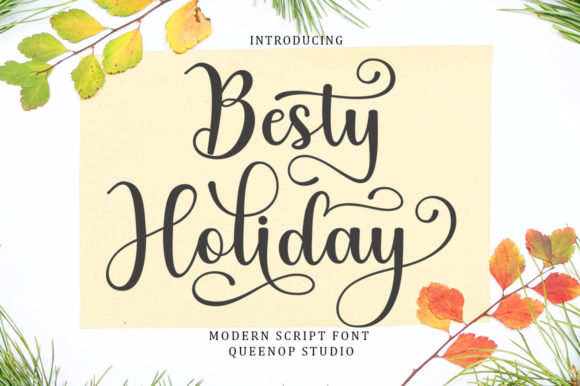
Prepare yourself to fall head over heels for Besty Holiday, the captivating script font that will transform your designs into enchanting masterpieces. Its graceful curves and elegant demeanor evoke a sense of timeless glamour, while its effortless readability ensures your messages shine.
Besty Holiday is the perfect companion for those special moments that deserve an extra touch of charm. Whether you're crafting heartfelt invitations for your upcoming Valentine's Day celebration or designing enchanting logos for your love-themed business, this font will add a sprinkle of magic to every creation.
But wait, there's more! Besty Holiday's versatility extends far beyond the realm of romance. Its stylish personality lends itself effortlessly to a variety of design projects, from whimsical greeting cards to eye-catching social media posts. Let your imagination soar as you explore the endless possibilities that await with Besty Holiday.
With its PUA encoding, accessing the font's full repertoire of glyphs and swashes is a breeze, empowering you to unleash your creativity without limits. Each letter dances across the page with a fluidity that will captivate your audience, leaving them spellbound by the beauty of your words.
Indulge in the exquisite charm of Besty Holiday today and let your designs blossom with a touch of undeniable elegance. Dive into a world of typographic delight and experience the joy of crafting messages that resonate with both style and substance.